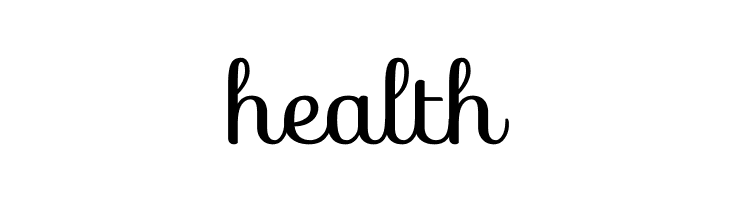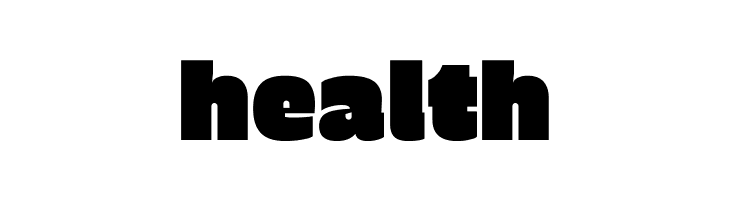
Sofia-Regular Font
A playful and elegant script font with smooth, flowing characters.
FugazOne-Regular Font
A bold, dynamic font with a modern and energetic style.
Sail-Regular Font
An elegant script font with flowing cursive style and decorative flourishes.
Fugaz One Font
A bold, dynamic font with a modern and energetic style.
Patua One Font
A bold, robust font with strong strokes and a modern yet timeless design.
Sofia Font
A playful and whimsical script font with rounded, flowing characters.
PatuaOne Font
A bold, robust font with strong strokes and elegant curves, ideal for headlines.
Medula One Font
A modern-vintage font with tall, narrow letterforms and subtle curves.
Sail Font
An elegant script font with ornate uppercase and bold lowercase letters.
Flamenco Font
A modern, elegant font with subtle curvature and balanced proportions.
Belgrano Font
A modern serif font with clean lines and balanced proportions.
MedulaOne-Regular Font
A modern yet vintage font with tall, narrow letterforms and rounded edges.
Flamenco Regular Font
A clean, modern font with a playful touch and consistent stroke width.
Belgrano Regular Font
A modern serif font with clean lines and a classic yet contemporary style.
Erica One Font
A bold, thick-stroked font with a modern and playful style.
Ceviche One Regular Font
A bold, dynamic font with sharp, angular edges and a playful style.
EricaOne-Regular Font
A bold, thick font with a strong, modern presence.
CevicheOne-Regular Font
Bold, angular font with a dynamic and energetic style.
Ceviche One Font